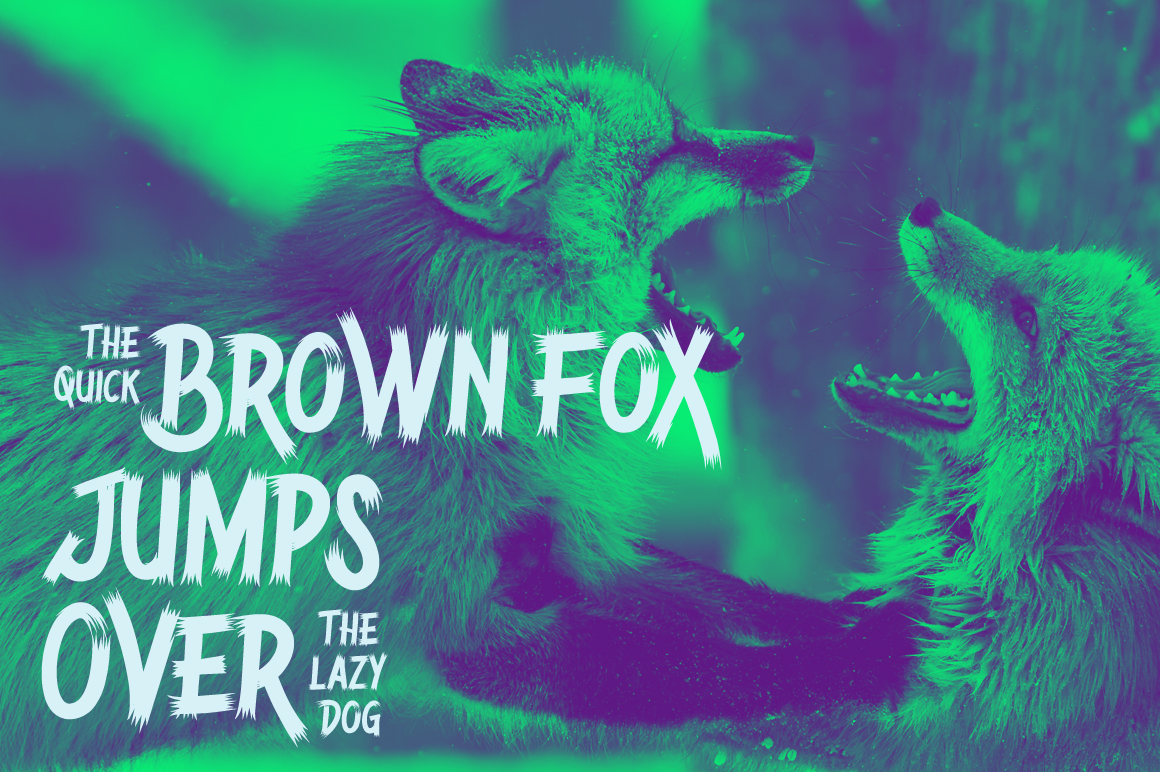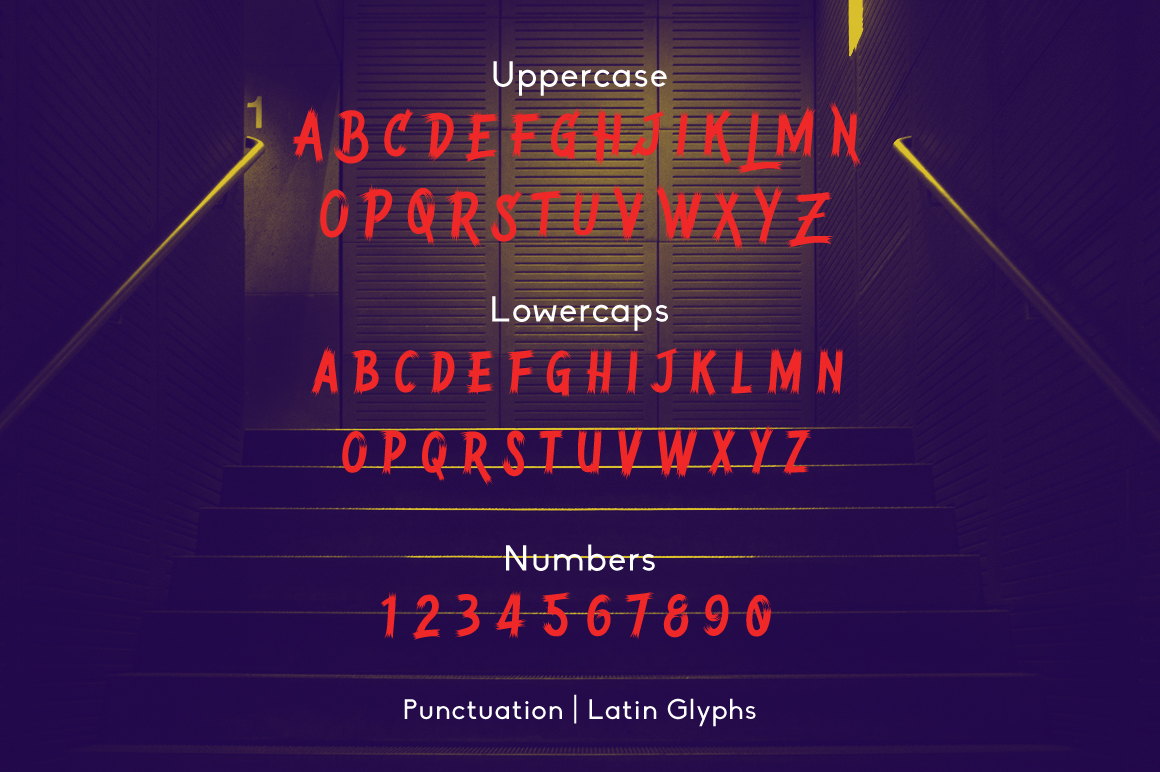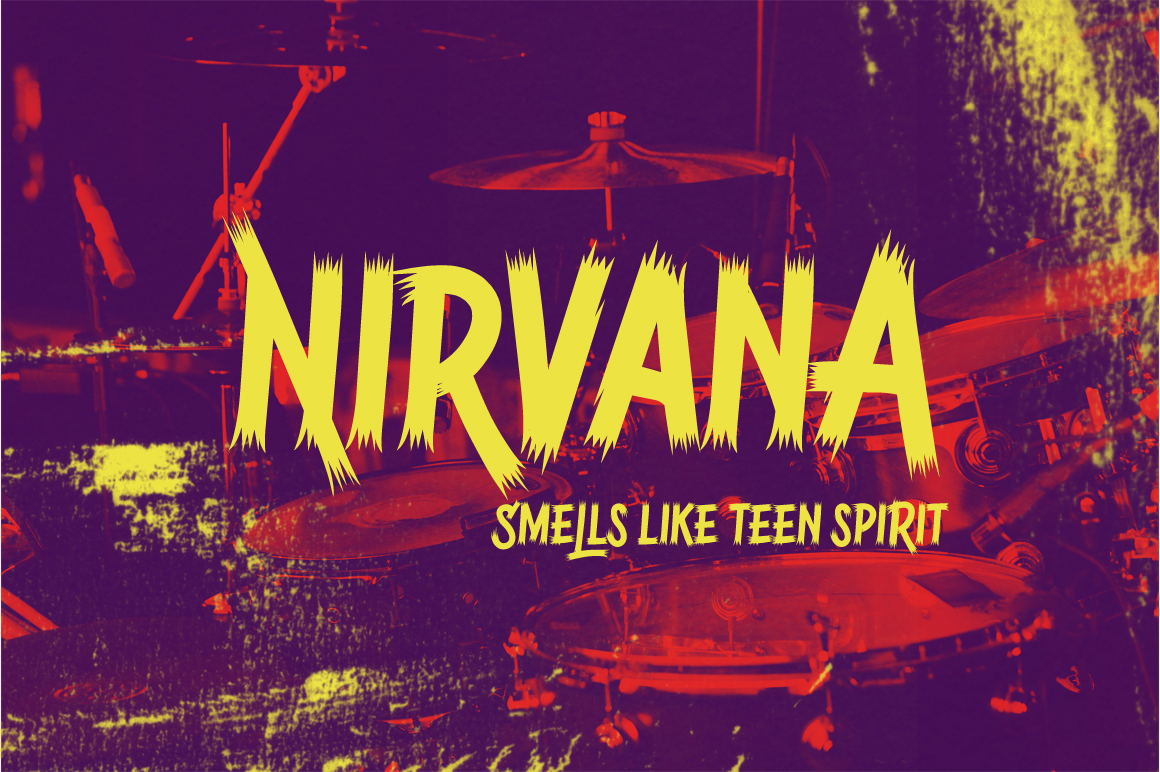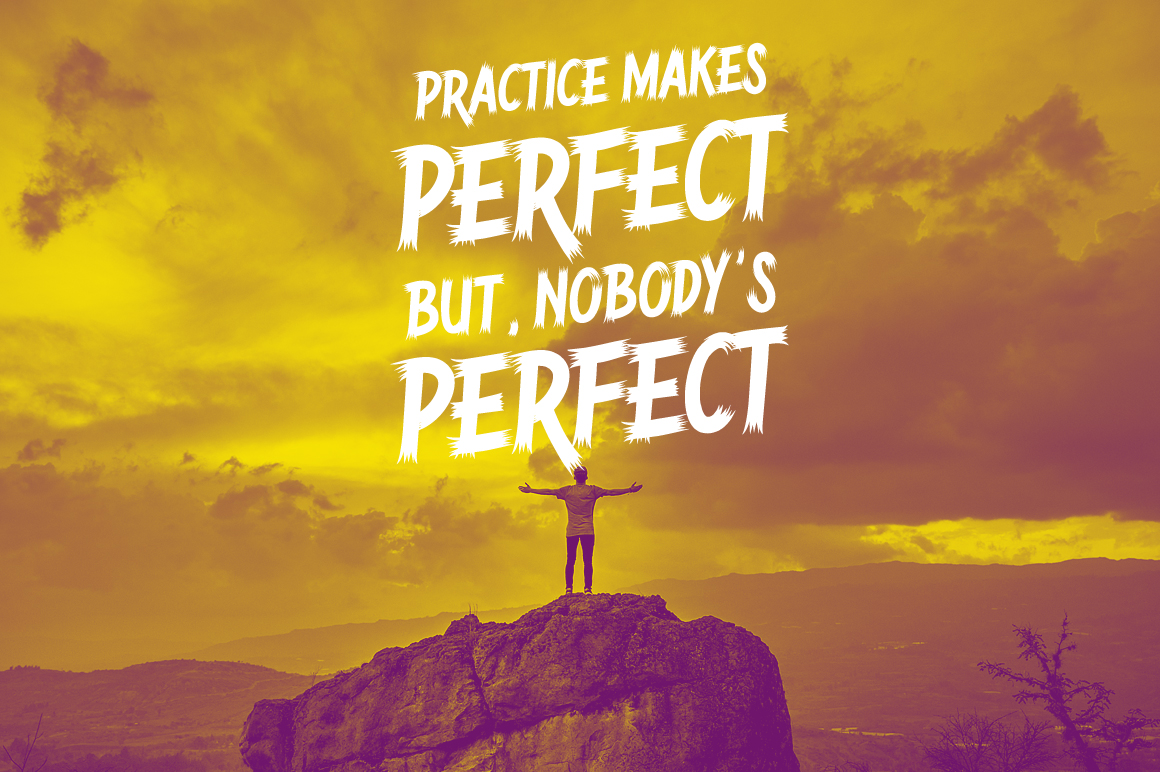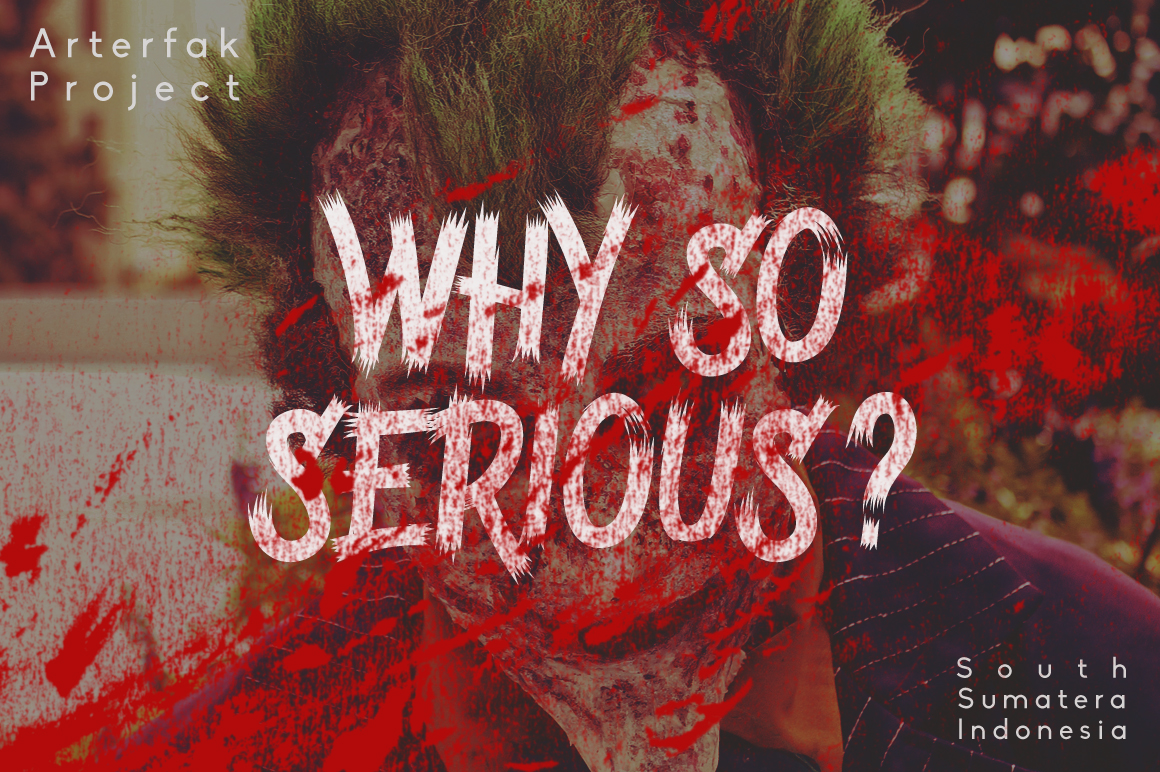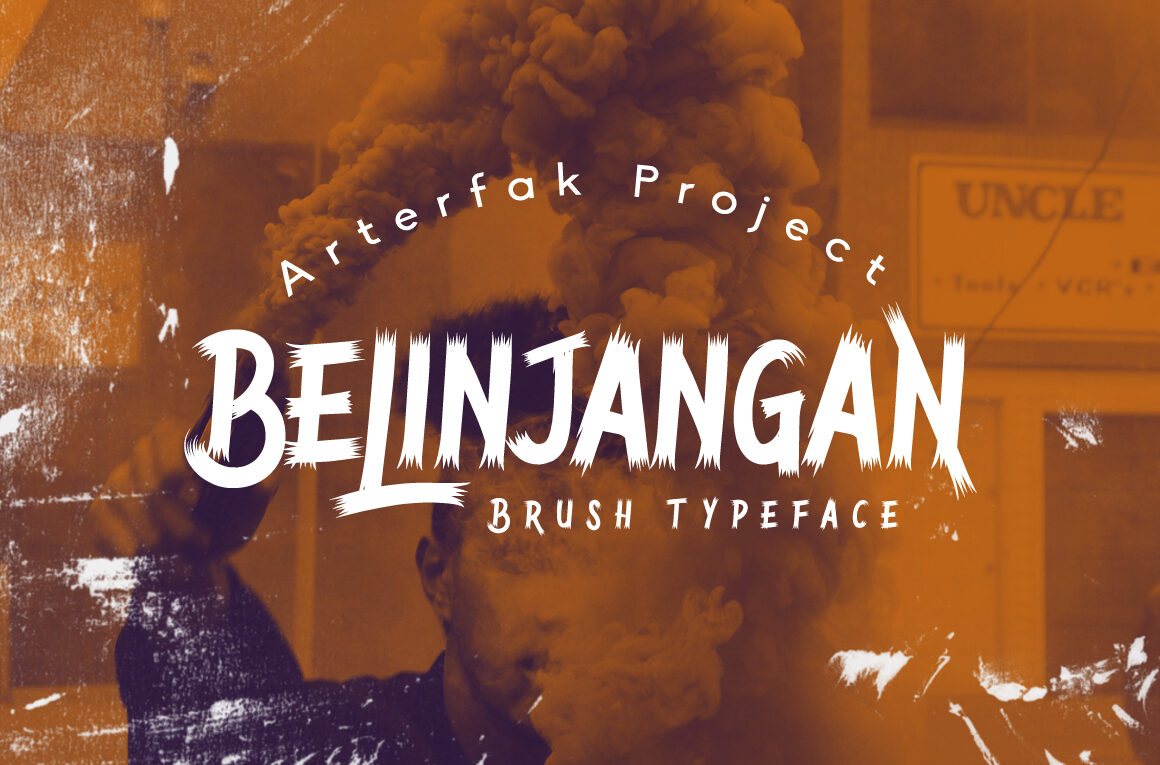
Introducing Belinjangan Font: The Experimental Digital Brush for Creative Minds
In the world of digital design, having the right tools and resources is essential for creating stunning visual content. For designers, crafters, and artists, finding the perfect font can make all the difference in bringing their ideas to life. This is where Belinjangan Font comes in – an experimental digital brush that is taking the design community by storm. In this article, we’ll dive into the features and benefits of Belinjangan Font, and explore how it can elevate your design game.
What is Belinjangan Font?
Belinjangan is an experimental digital brush that features a clean base with rough edges. This unique combination gives designers the best of both worlds – a crisp, modern look with a touch of organic texture. The font is perfect for those who want to add a creative twist to their designs without sacrificing legibility.
Key Features of Belinjangan Font
- Clean Base: Belinjangan Font boasts a clean and simple base that provides a solid foundation for your designs. The font’s base is highly legible, making it perfect for body text, headings, and titles.
- Rough Edges: The rough edges of Belinjangan Font add a touch of texture and personality to your designs. This feature gives your text a hand-crafted look that’s perfect for creative projects, such as logos, posters, and social media graphics.
- Experimental Spirit: As an experimental digital brush, Belinjangan Font is not afraid to push the boundaries of traditional typography. Its unique features make it an excellent choice for designers who want to try something new and innovative.
Who Can Benefit from Belinjangan Font?
Belinjangan Font is perfect for a wide range of designers and crafters, including:
- Graphic Designers: Whether you’re working on a logo, brochure, or social media campaign, Belinjangan Font can add a creative touch to your designs.
- UI/UX Designers: The font’s clean base and rough edges make it an excellent choice for digital products, such as mobile apps, websites, and video games.
- Artists and Illustrators: Belinjangan Font can be used to add texture and personality to your artwork, making it perfect for illustrations, comics, and graphic novels.
- Crafters and Makers: If you’re working on a craft project, such as hand-lettering, journaling, or scrapbooking, Belinjangan Font can add a unique touch to your work.
How to Use Belinjangan Font in Your Designs
Using Belinjangan Font in your designs is easy. Here are a few tips to get you started:
- Pair it with Other Fonts: Belinjangan Font pairs well with other fonts, especially those with a clean and modern aesthetic. Try pairing it with a sans-serif font for a bold and eye-catching look.
- Experiment with Colors: The rough edges of Belinjangan Font make it perfect for use with bold and bright colors. Try experimenting with different color combinations to add depth and texture to your designs.
- Play with Texture: Belinjangan Font’s texture is one of its unique features. Experiment with different textures, such as paper, wood, or fabric, to add an extra layer of depth to your designs.
Belinjangan Font is an exciting addition to the world of digital design. Its unique combination of a clean base and rough edges makes it perfect for designers, crafters, and artists who want to add a creative twist to their work. With its experimental spirit and versatility, Belinjangan Font is sure to become a go-to choice for anyone looking to elevate their design game. So why not give it a try and see what amazing creations you can come up with?